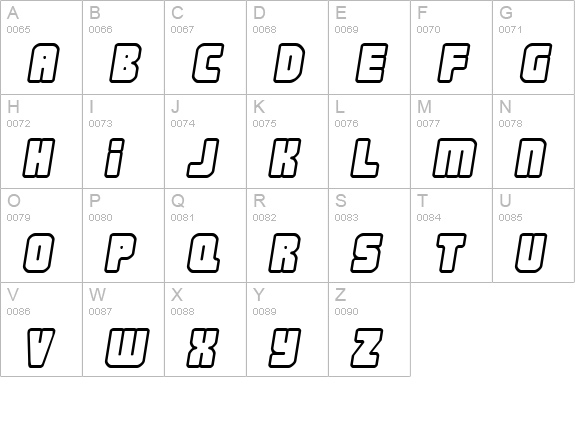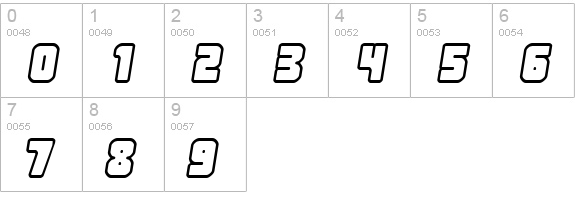
Nonstop [italic] Font Details
Nonstop [italic] is a distinctive, italic variant in the Nonstop typeface family \xE2\x80\x94 well suited to design and typography projects.
Nonstop font is a stylish and modern typeface that exudes a sense of energy and dynamism. With its sleek lines and contemporary design, this font is perfect for adding a touch of sophistication to any project. Whether you're designing a logo, creating a poster, or crafting a website, Nonstop font is sure to make a bold statement. The best part? Nonstop font is completely free to download at FontsMarket.com. That's right, you can get your hands on this versatile typeface without spending a dime. So why wait? Add Nonstop font to your collection today and take your designs to the next level.